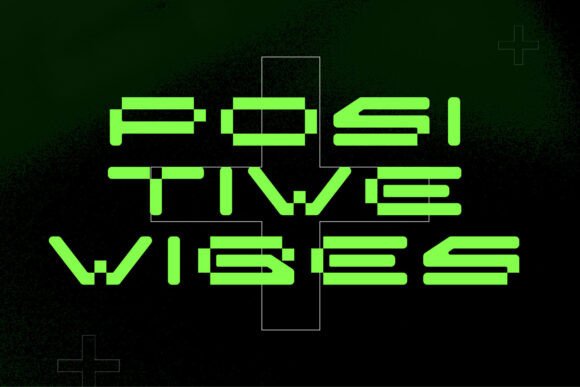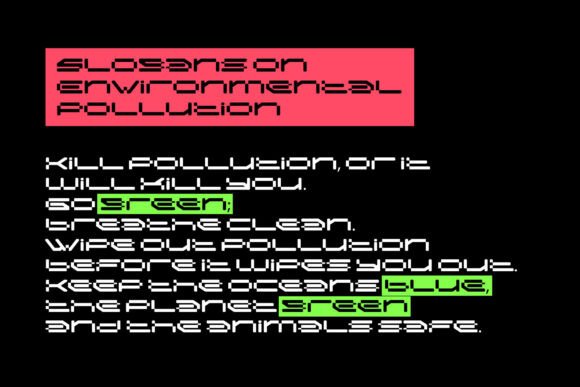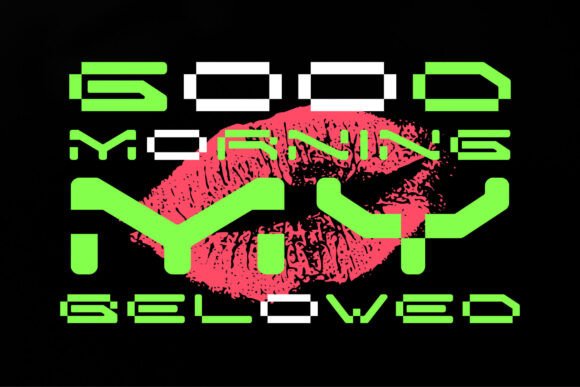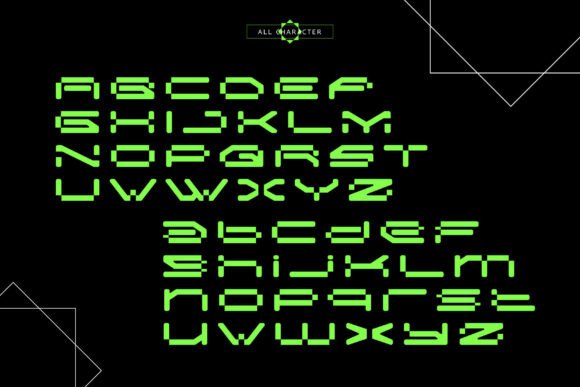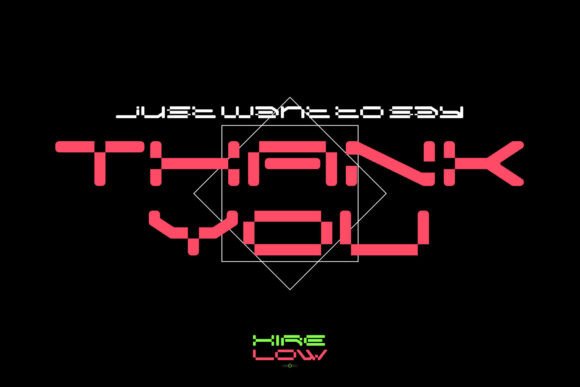
Introduction to Hire Low Font
Hire Low is a futuristic bold font with minimalist, wide letters by combining variations of element square.
It is perfect for those of you who want to make your design look more modern and still with a futuristic style .